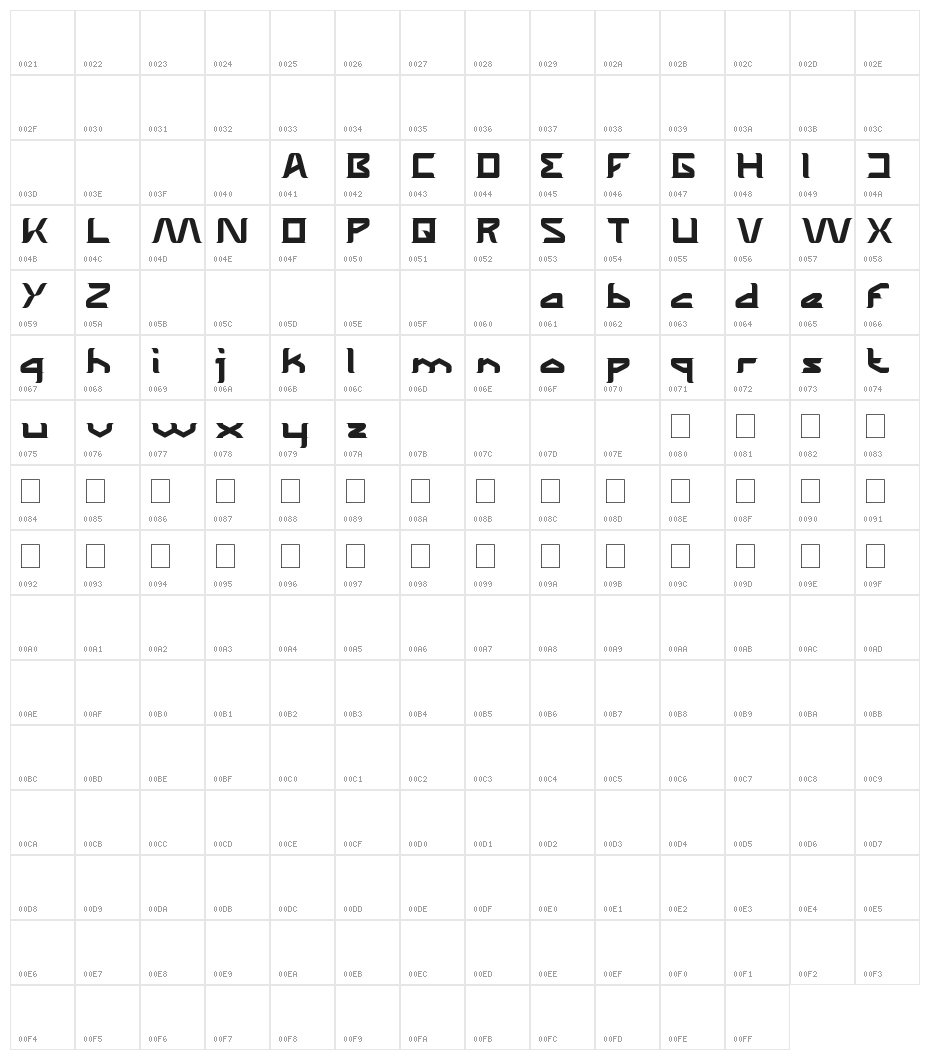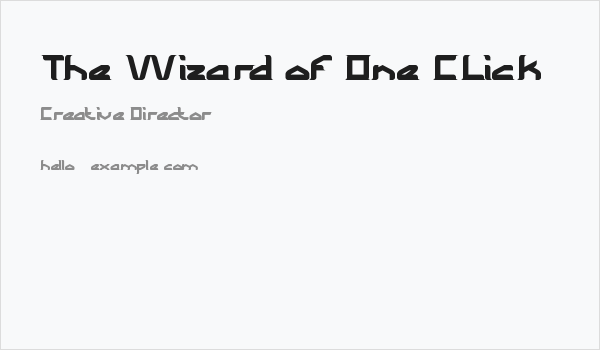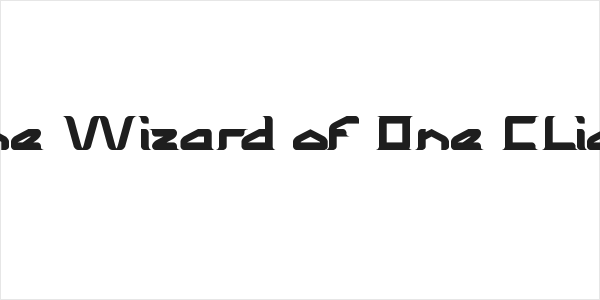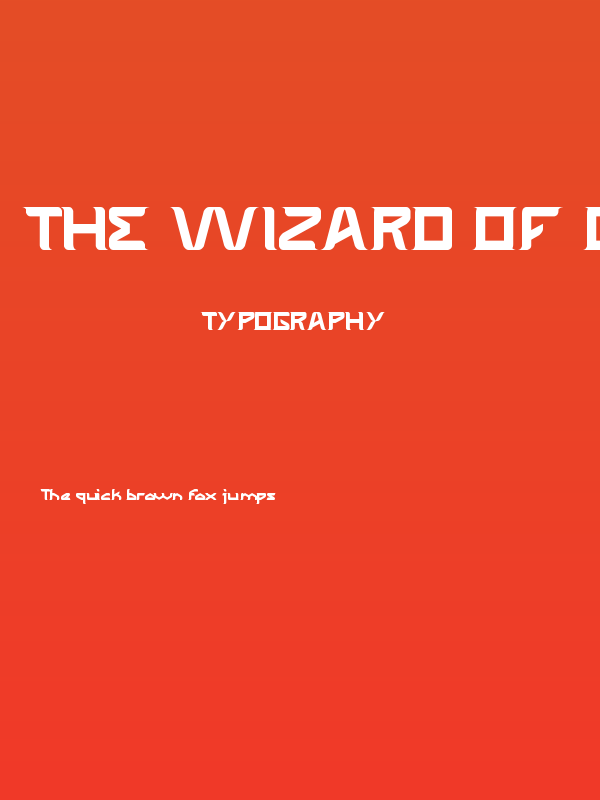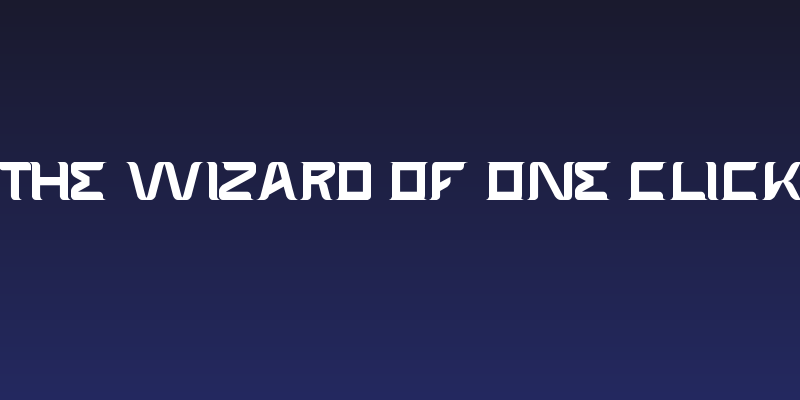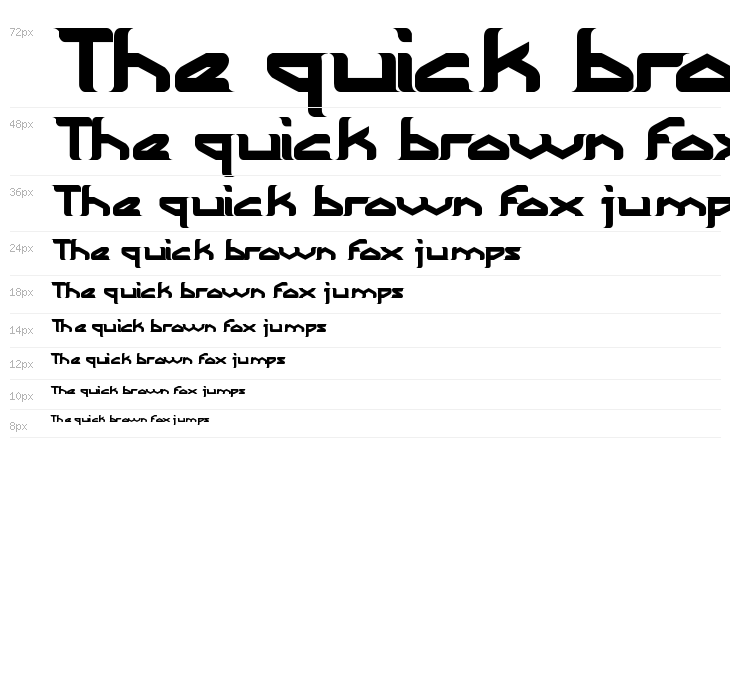
The Wizard of One CLick Font
The Wizard of One CLick Description
This font features a bold, angular design with a futuristic and geometric aesthetic. The characters are constructed with sharp edges and distinct angles, creating a sense of movement and energy. The uppercase letters are particularly striking, with a uniform height and width that gives them a blocky appearance. The lowercase letters maintain the angular theme but are slightly more compact, offering a nice contrast to the uppercase set. The numbers and special characters are consistent with the overall style, ensuring a cohesive look across all text. This font's unique design makes it stand out, making it ideal for projects that require a modern and edgy feel.